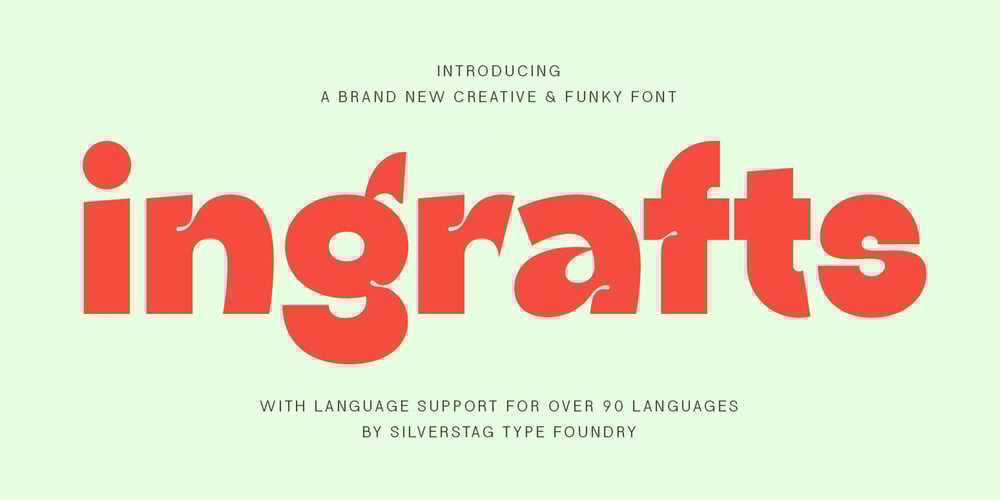
Ingrafts Font Family was designed by SilverStag and published by SilverStag. Ingrafts contains 1 styles and family package options. Introducing Ingrafts: The Funky Sans Serif with a Bold AttitudeGet ready to inject some serious personality into your designs with Ingrafts, a brand-new chunky sans serif that packs a playful punch! With its thick strokes, quirky ink traps, and infectious energy, Ingrafts demands attention and refuses to be ignored.Key Features to Elevate Your Designs: Expressive & Versatile: Perfect for impactful headlines, attention-grabbing posters, trendy social media graphics, and branding that dares to be different. 50+ Playful Alternates: Unlock a world of typographic possibilities with over 50 alternate characters. Mix and match for a unique, custom look with endless variations. Global Reach: Ingrafts’ extensive language support for over 90 languages ensures your message resonates with a worldwide audience. A Touch of the Unexpected: Subtle curves and unexpected details give Ingrafts a funky, approachable vibe that sets it apart from standard bold fonts. Where Ingrafts Shines: Unforgettable Branding: Craft logos, packaging, and marketing materials that make a lasting impression. Headline Hero: Grab attention with powerful website headers, poster titles, and social media graphics. Editorial Edge: Inject a dose of personality into magazine layouts, feature articles, and blog designs. Trendy Statements: Perfect for fashion, streetwear, and music-inspired projects that embrace bold style. Experience the Fun of IngraftsForget bland typography! Ingrafts is a celebration of playful design and confident expression. Whether you’re aiming for a nostalgic retro vibe or a cutting-edge contemporary look, this font delivers impact with a smile.Download Ingrafts today and start creating designs that stand out from the crowd!Happy creating everyone!